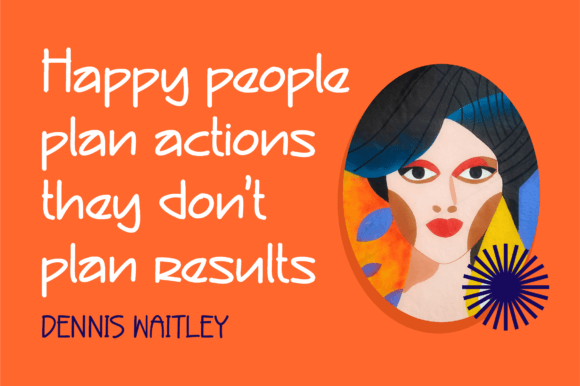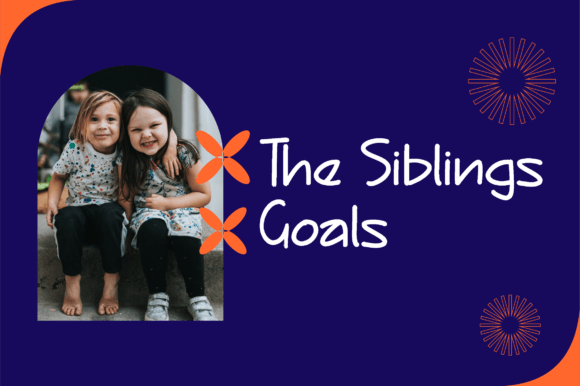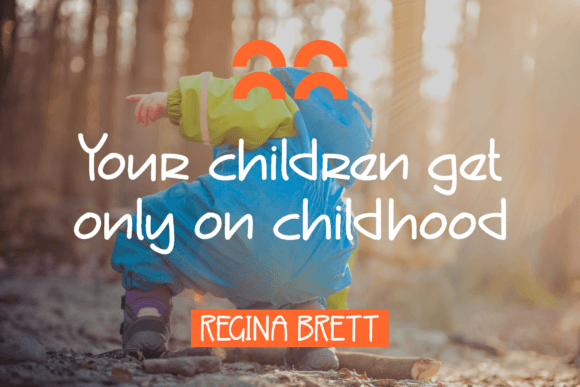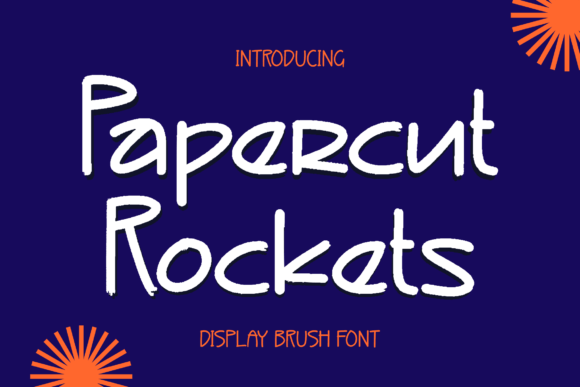
Introduction to Papercut Rockets Font
Papercut Rockets – Display Brush Font , from Letterfabric Studio, suitable for any projects such as: logos, branding projects, homeware designs, product packaging, mugs, quotes, posters, shopping bags, t-shirts, book covers, name card, invitation cards, greeting cards, label, photography, watermark, special events, and all your other lovely projects that need a beautiful script taste.
Why Choose Papercut Rockets Font?
Papercut Rockets Font offers exceptional quality and versatility, making it a valuable addition to your design toolkit. Whether you’re creating for personal projects or commercial use, Papercut Rockets Font delivers professional results.